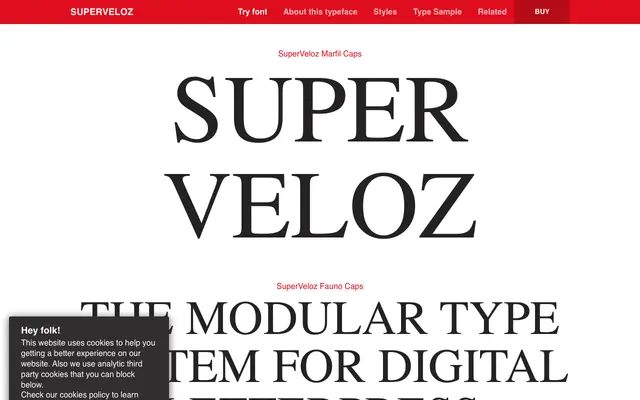
SuperVeloz
Typerepublic · Joan Trochut, Andreu Balius, Àlex Trochut · 1942
A digital revival of Joan Trochut's 1942 modular metal type system, in which over 200 combinable pieces allow the construction of any letterform or symbol.
Originally produced in 1942 by Fundición Tipográfica Iranzo in Barcelona, SuperTipo Veloz replaced complete characters with combinable metal modules, freeing printers from the constraints of conventional lead type. Digitised in 2004 by Andreu Balius and Àlex Trochut, the revival comprises nine styles across Basic, Complement, RasgosVeloz and two Caps families designed for drop caps, logotypes and letterheads. The system won the Type Directors Club Excellence in Type Design award in 2005.
SuperVeloz is a modular type system of combinable metal pieces rather than complete characters, placing it firmly in the display category as a highly decorative and constructional system with no single fixed letterform.